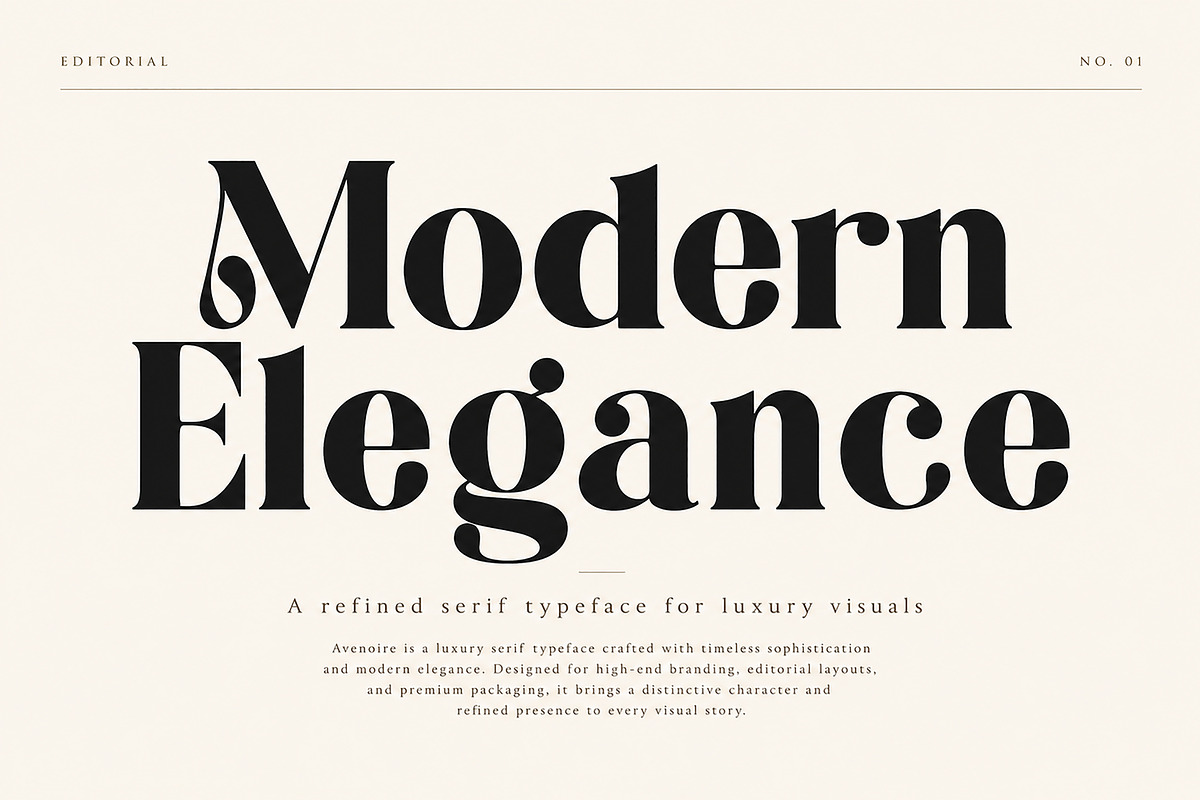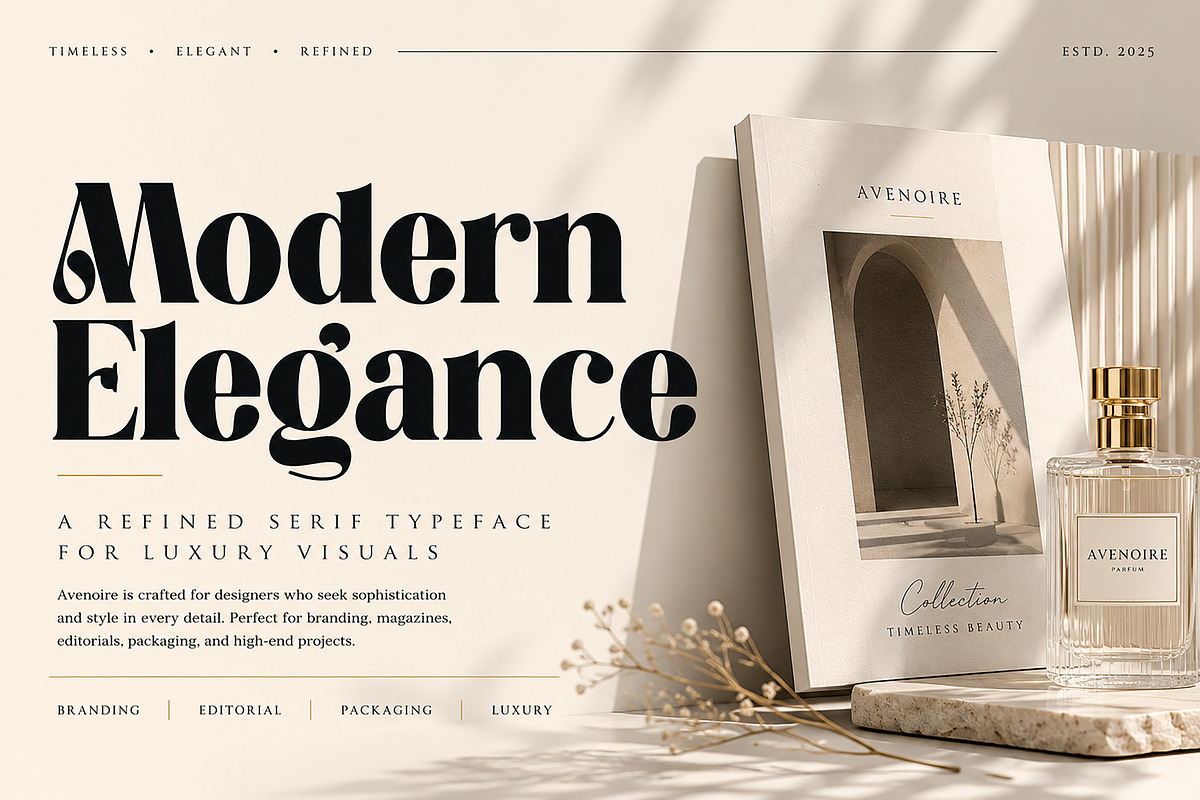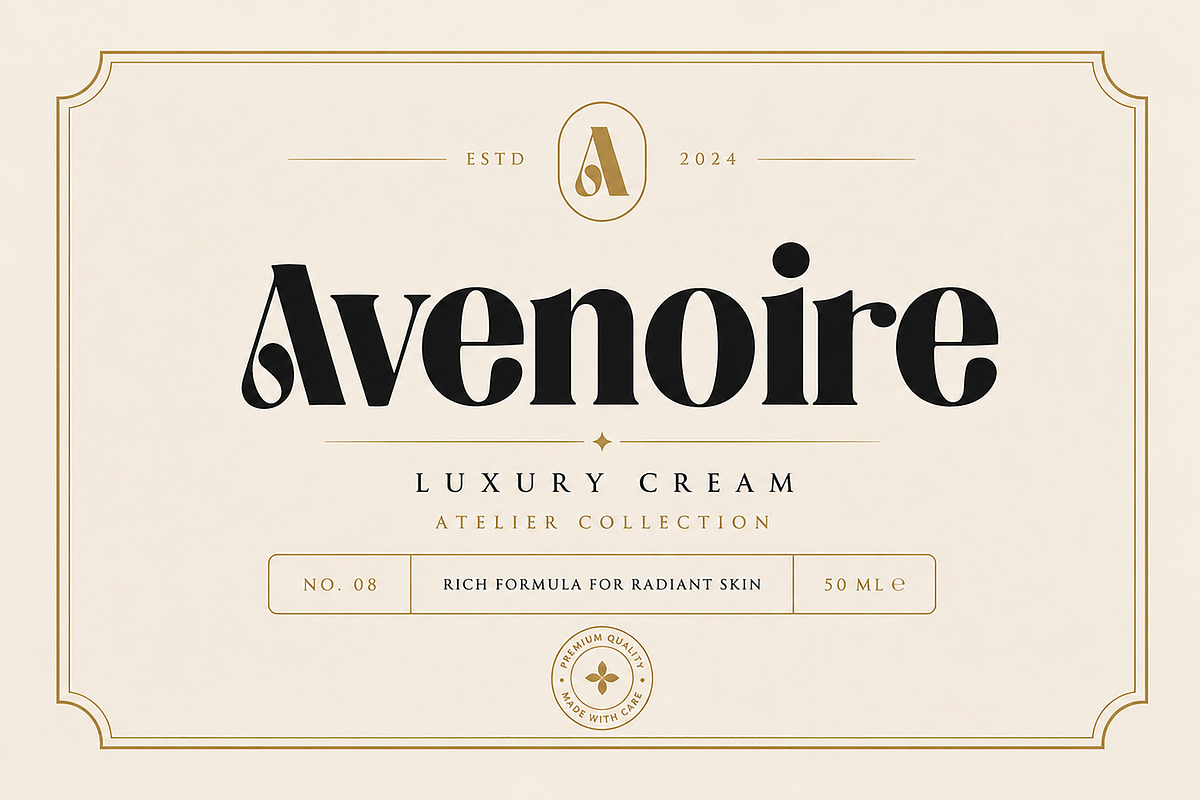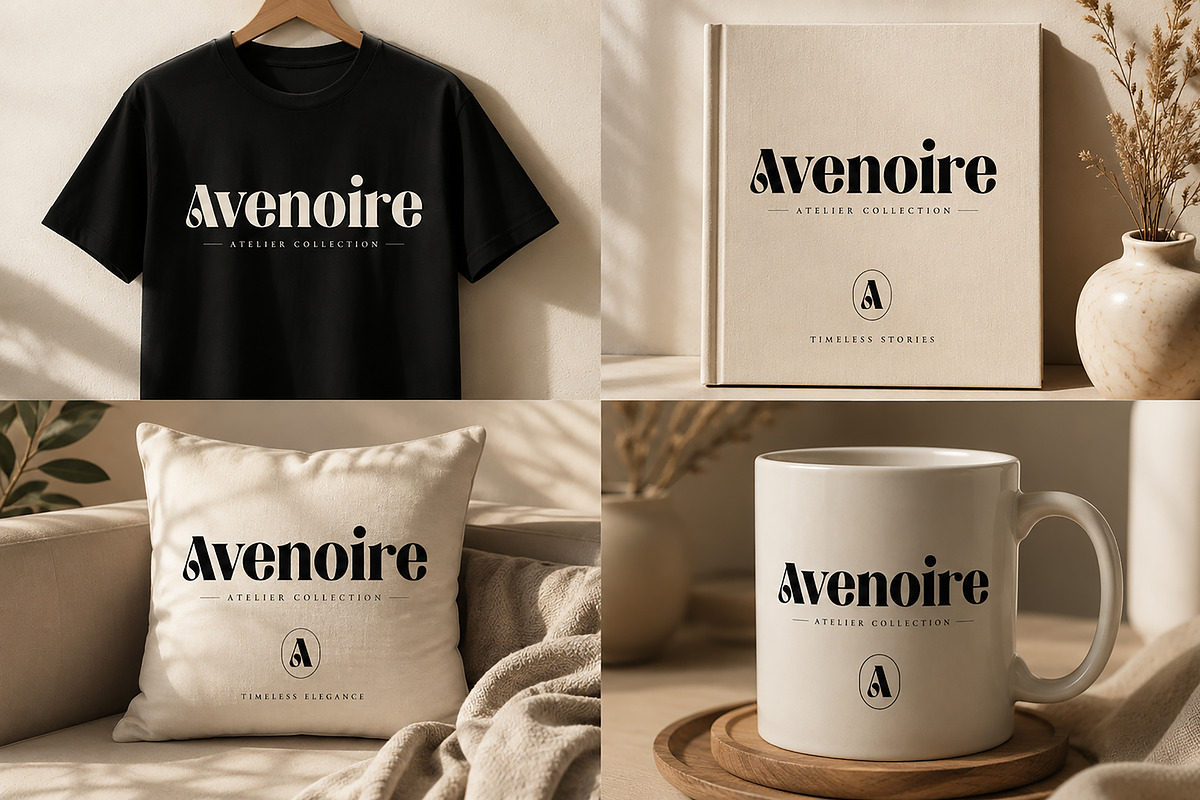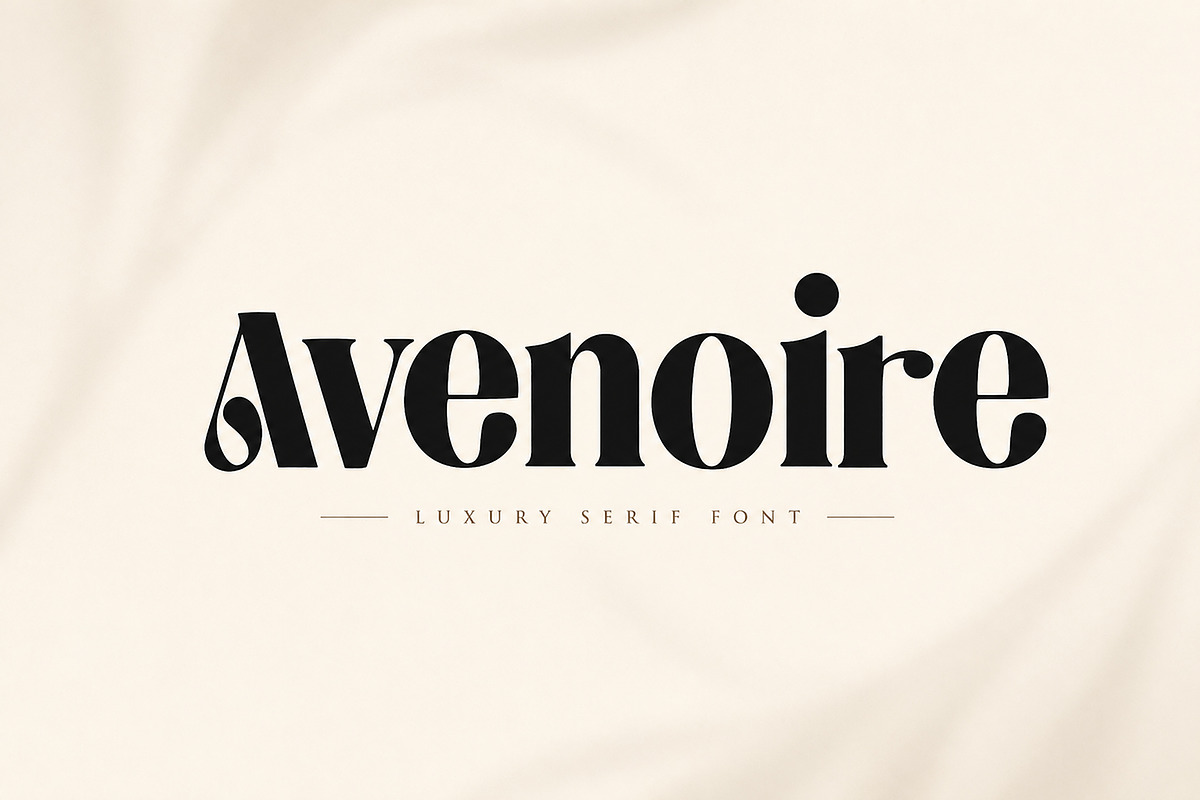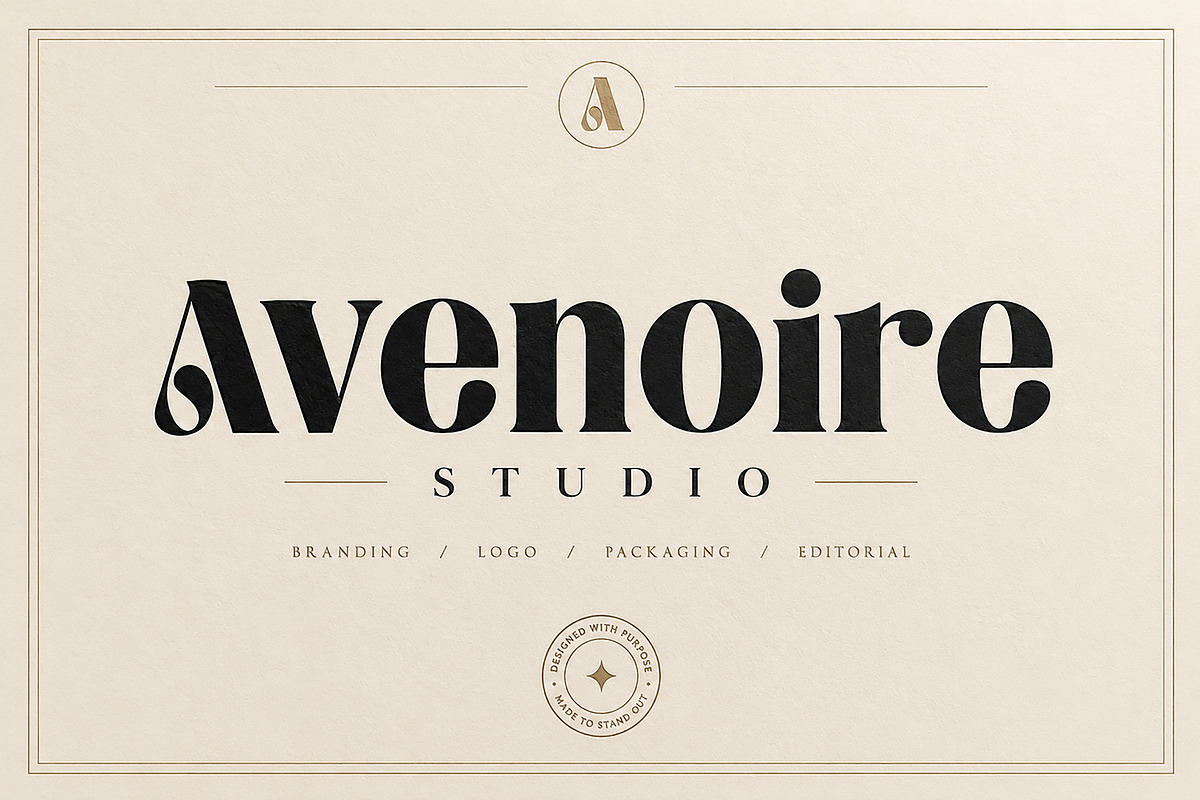
Avenoire
Avenoire – Luxury Serif Display Font
A sophisticated luxury serif display font crafted for branding, editorial design, logos, packaging, fashion, beauty, and premium creative projects.
Avenoire is a sophisticated luxury serif display font crafted for designers who appreciate timeless elegance and modern refinement. With its distinctive high-contrast letterforms, graceful curves, and bold editorial presence, Avenoire instantly elevates any design with a premium and fashionable aesthetic.
Designed for impactful headlines and luxury branding, this typeface is perfect for fashion brands, beauty products, editorial layouts, logos, packaging, social media, and high-end marketing materials. Whether you're creating a boutique identity, perfume label, magazine cover, or premium product packaging, Avenoire delivers a refined and unforgettable visual experience.
Its unique character shapes combine classic serif beauty with a contemporary display style, making it ideal for projects that demand sophistication and style.
Luxury Branding
Fashion Logos
Editorial Headlines
Magazine Covers
Beauty & Skincare Packaging
Perfume Labels
Jewelry Branding
Boutique Identity
Wedding Stationery
Posters
Premium Advertising
Creative Branding Projects
Luxury Serif Display Style
Elegant High-Contrast Letterforms
Modern Editorial Aesthetic
Strong Visual Impact
Clean & Premium Design
Ideal for Large Titles & Logos
Stylish Branding Typeface
Best Used For
Fashion • Beauty • Cosmetics • Perfume • Jewelry • Boutique • Editorial • Branding • Luxury Packaging • Wedding • Lifestyle • Posters • Advertising • Social Media • Book Covers • Premium Logos